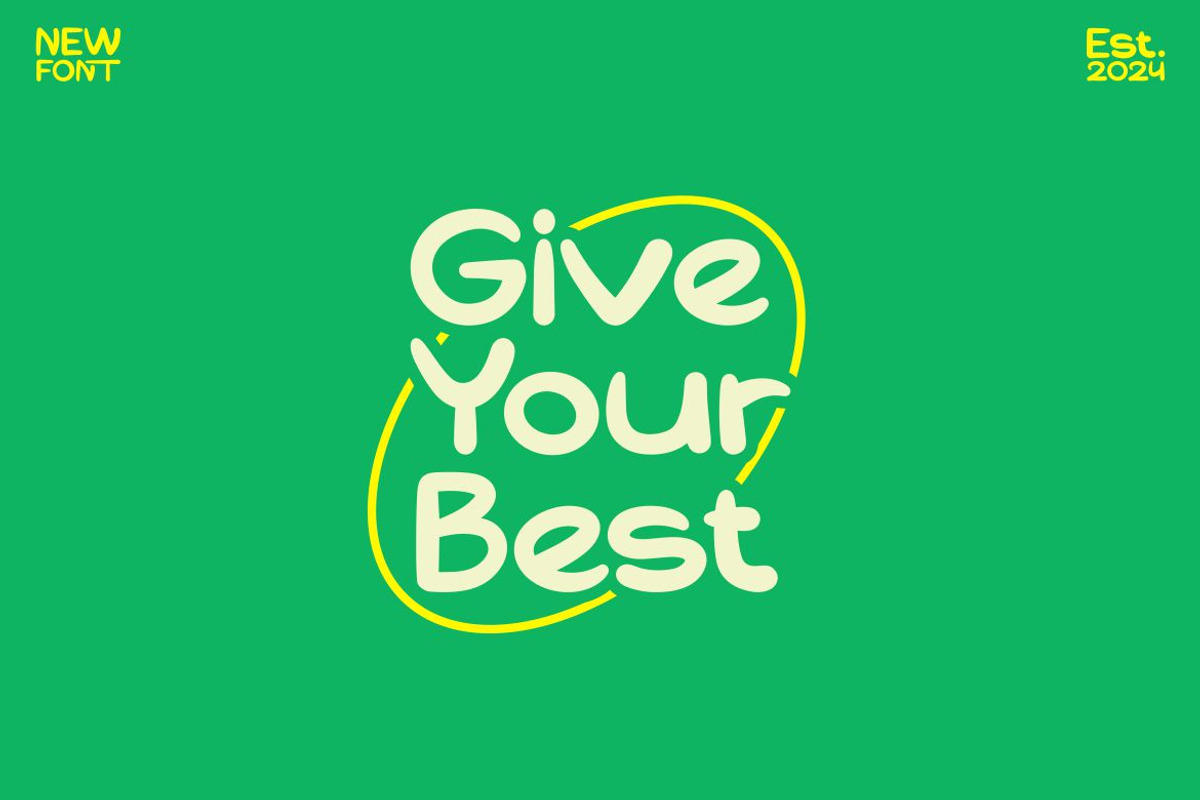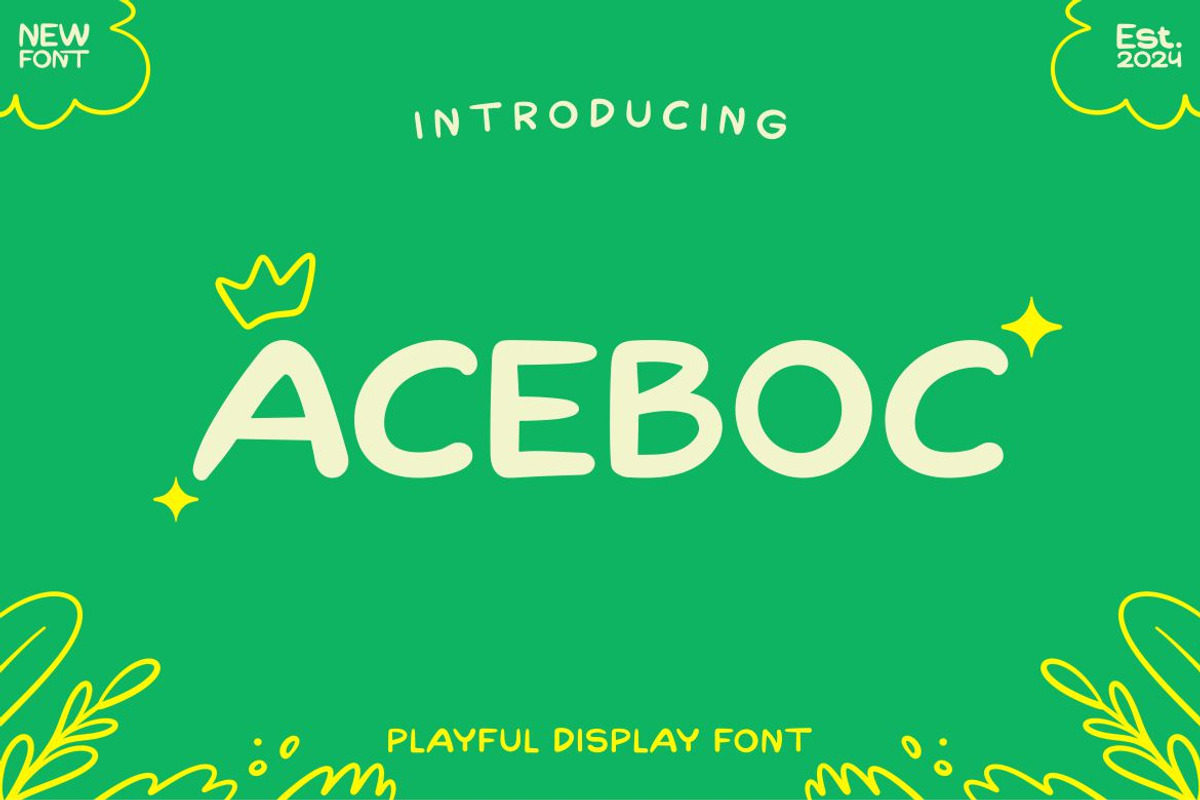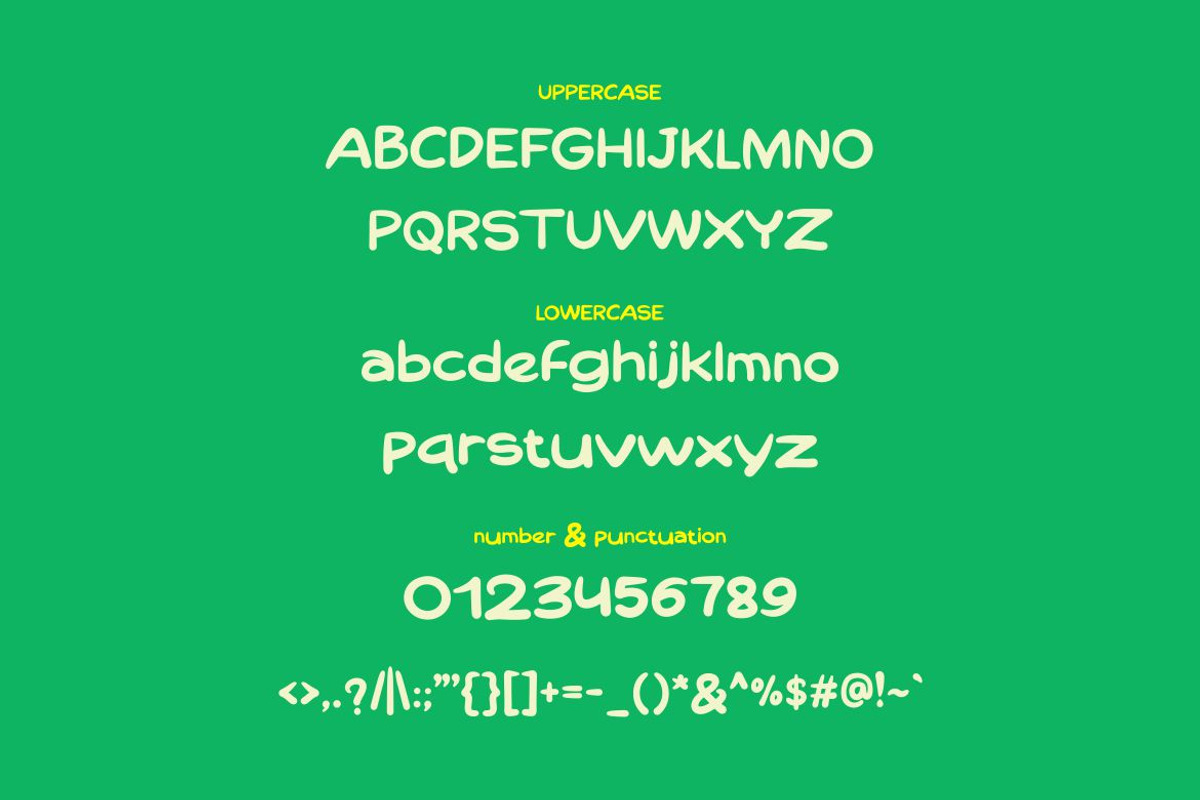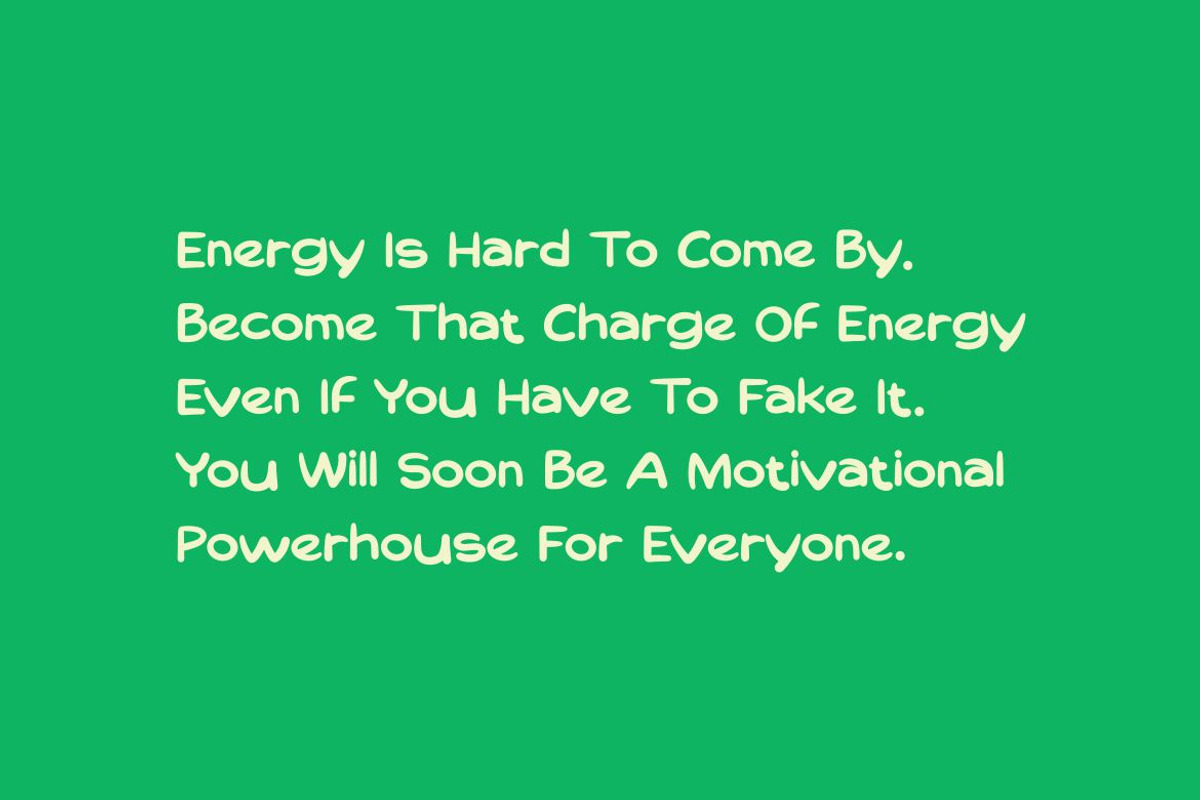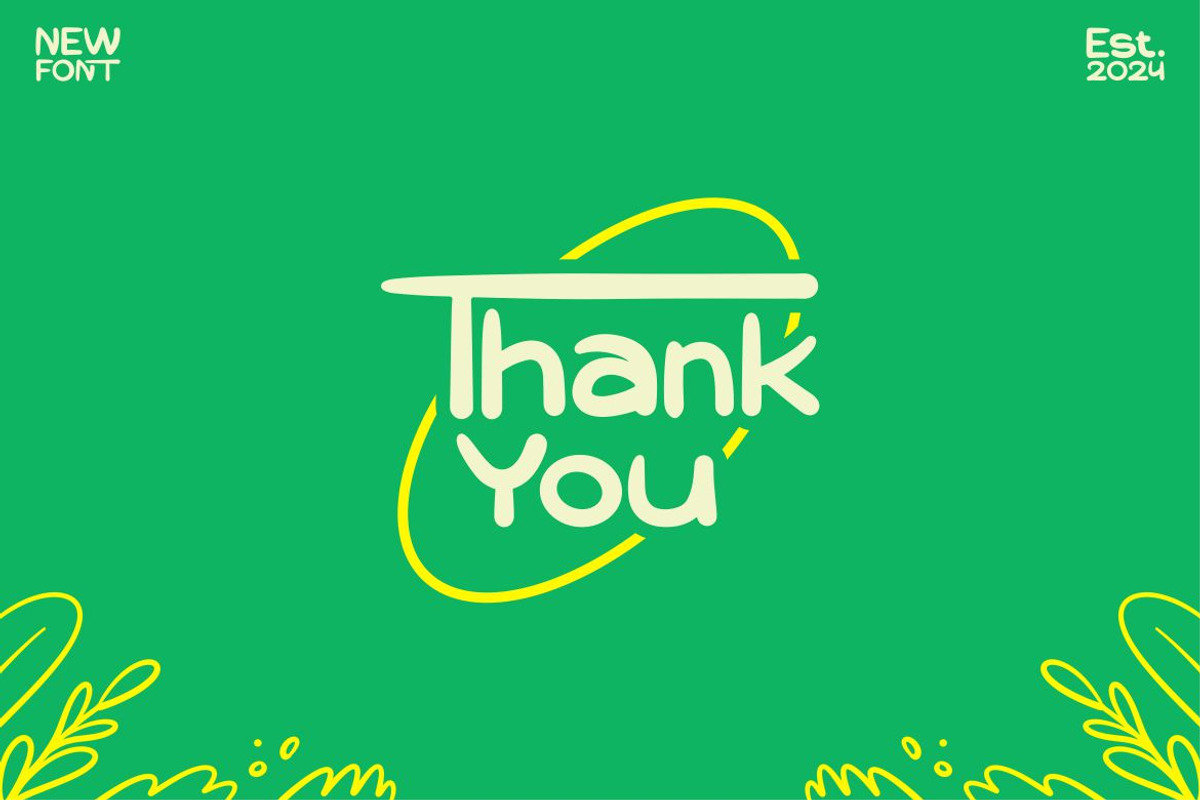
Aceboc - Playful Display Font
Introducing Aceboc , a cool and elegant Playful Display Font. Elegant font feel. This font gives you a beautiful and modern atmosphere. suitable for posters, book covers, cards, merchandise, etc.